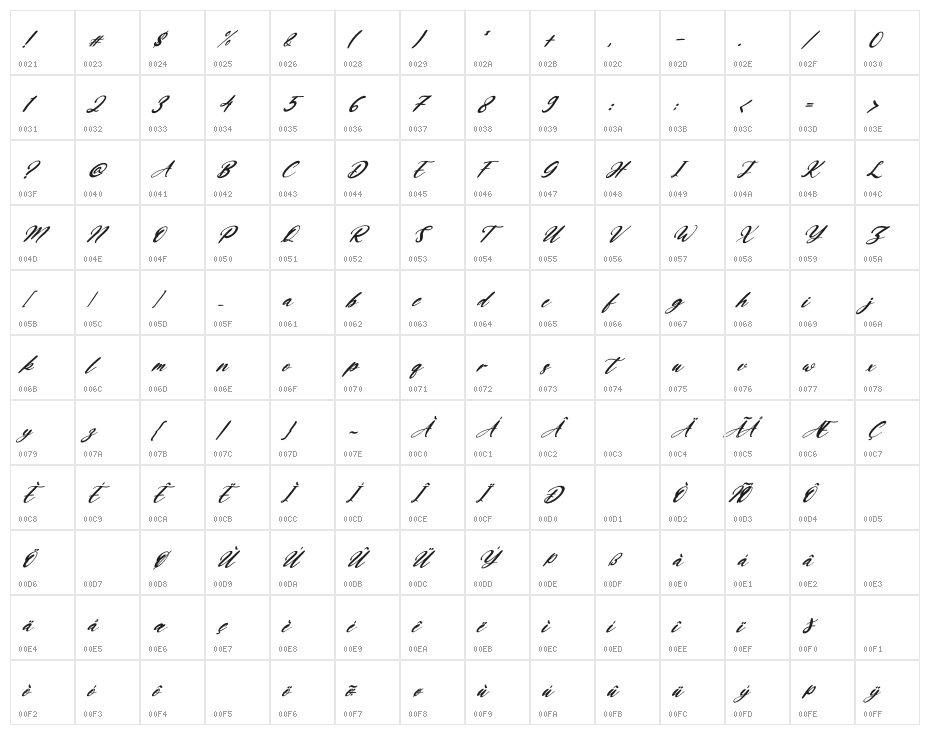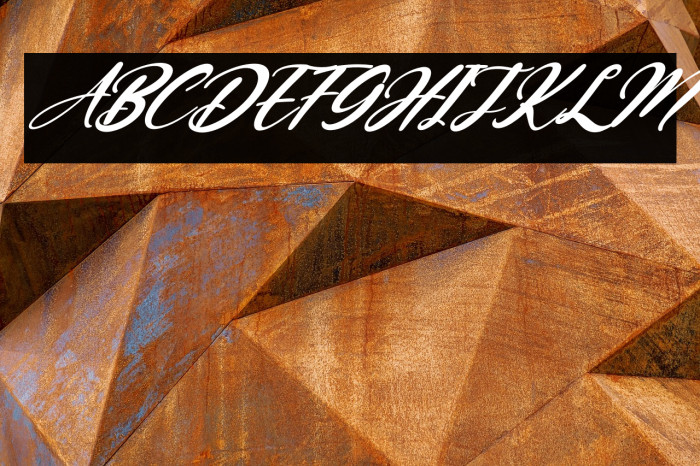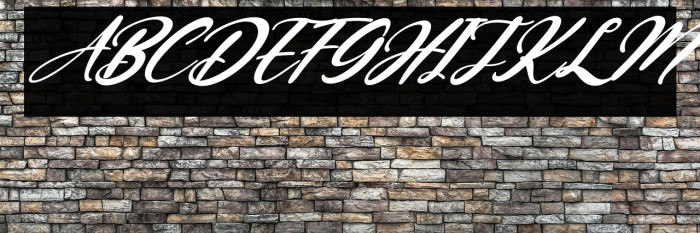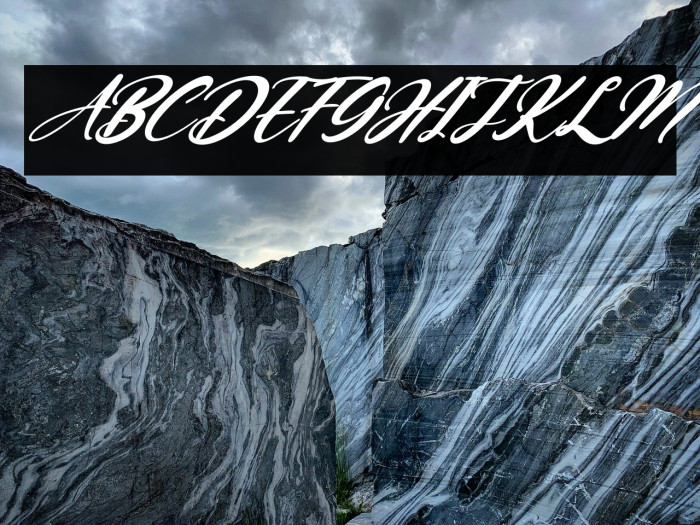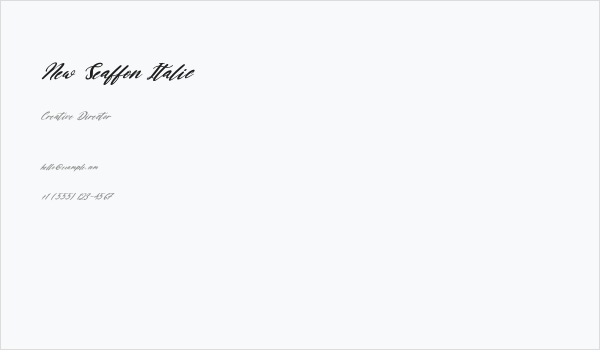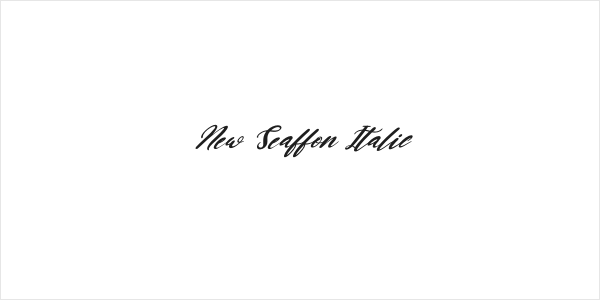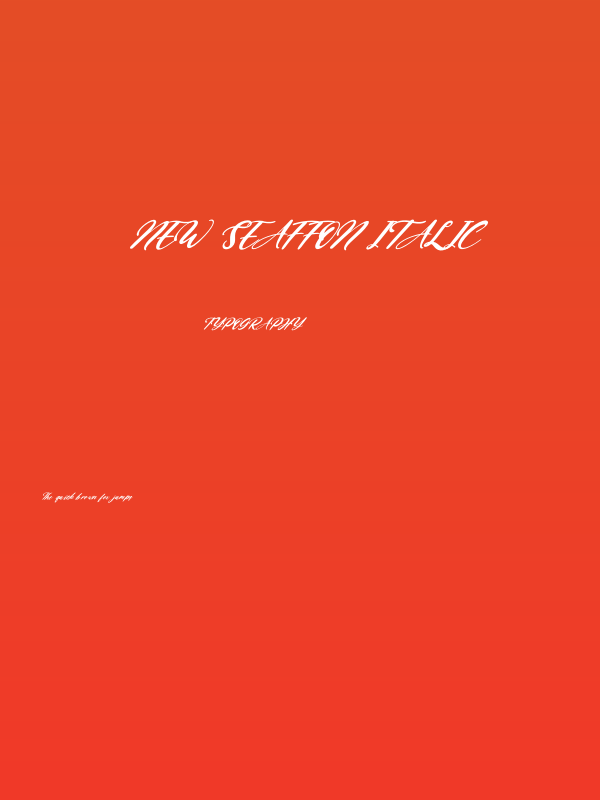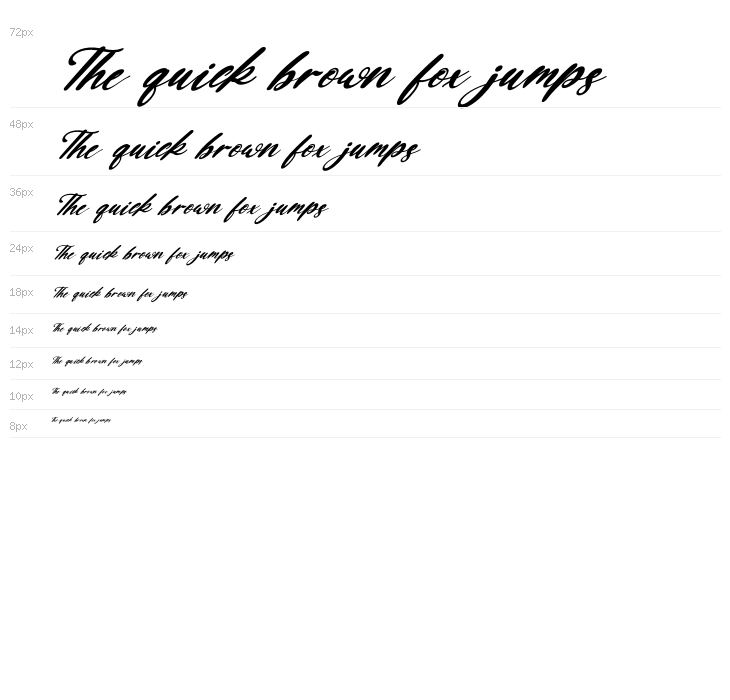
New Seaffon Italic Font
New Seaffon Italic Description
This elegant script font features a flowing, cursive style with a distinct italic slant. The characters are intricately designed with smooth curves and flourishes, giving it a sophisticated and artistic appearance. The uppercase letters are particularly ornate, with dramatic loops and swashes that add a touch of flair. The lowercase letters maintain a consistent style, complementing the uppercase with their own subtle embellishments. Numbers and special characters are crafted with the same attention to detail, ensuring a cohesive look across all elements. This font exudes a sense of grace and refinement, making it ideal for projects that require a touch of elegance.
| Overall Style | Elegant, Artistic |
| Proposed Projects | Ideal for wedding invitations, elegant branding, greeting cards, and artistic projects. |